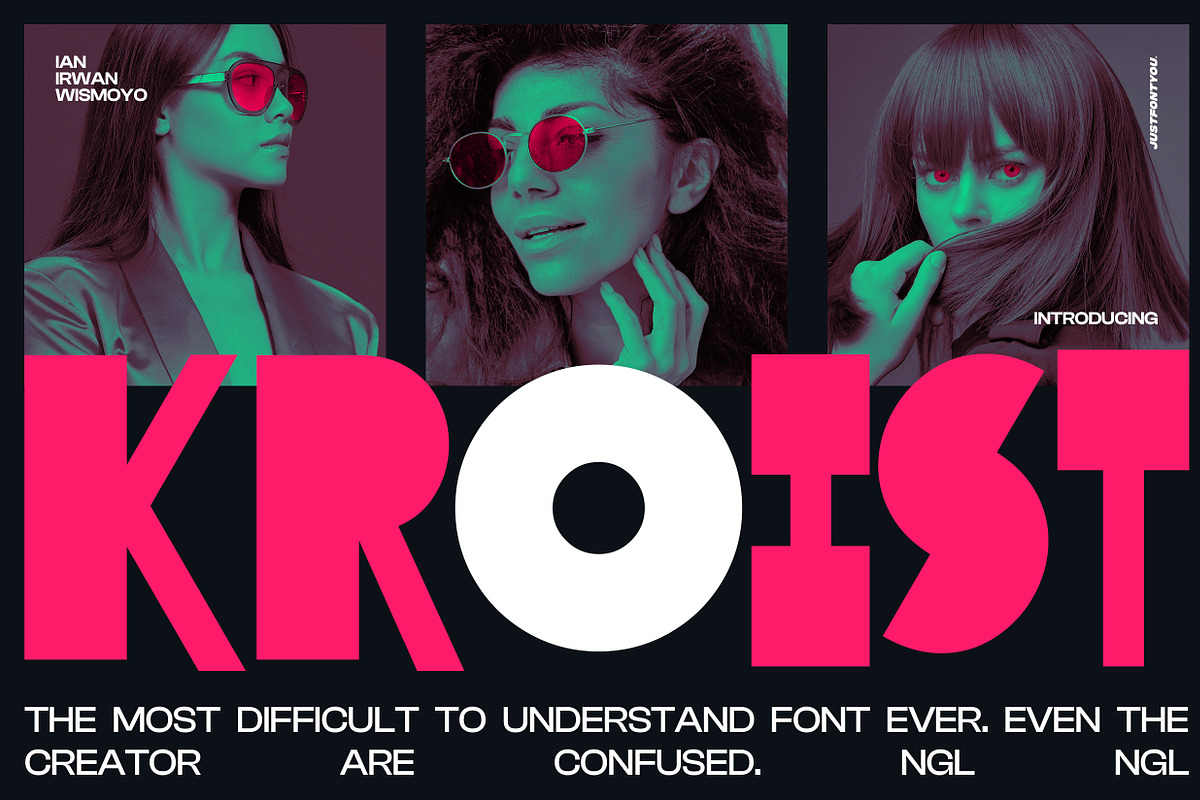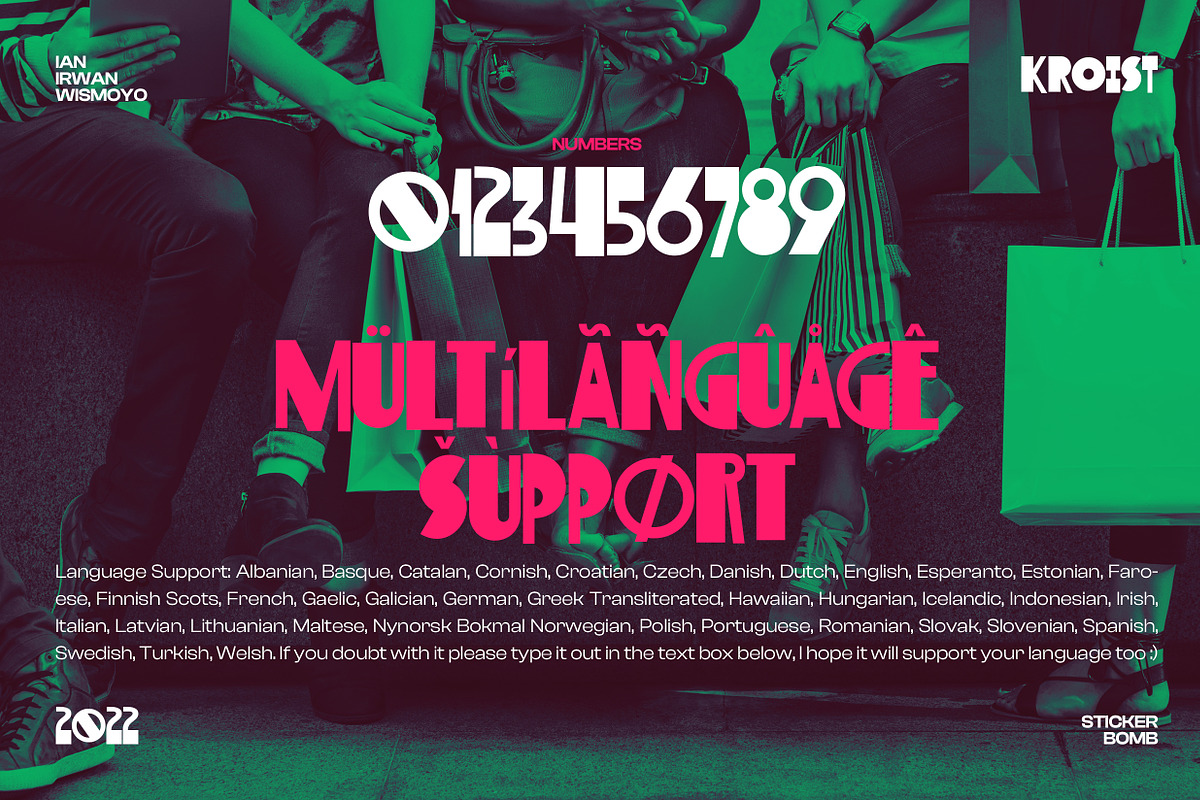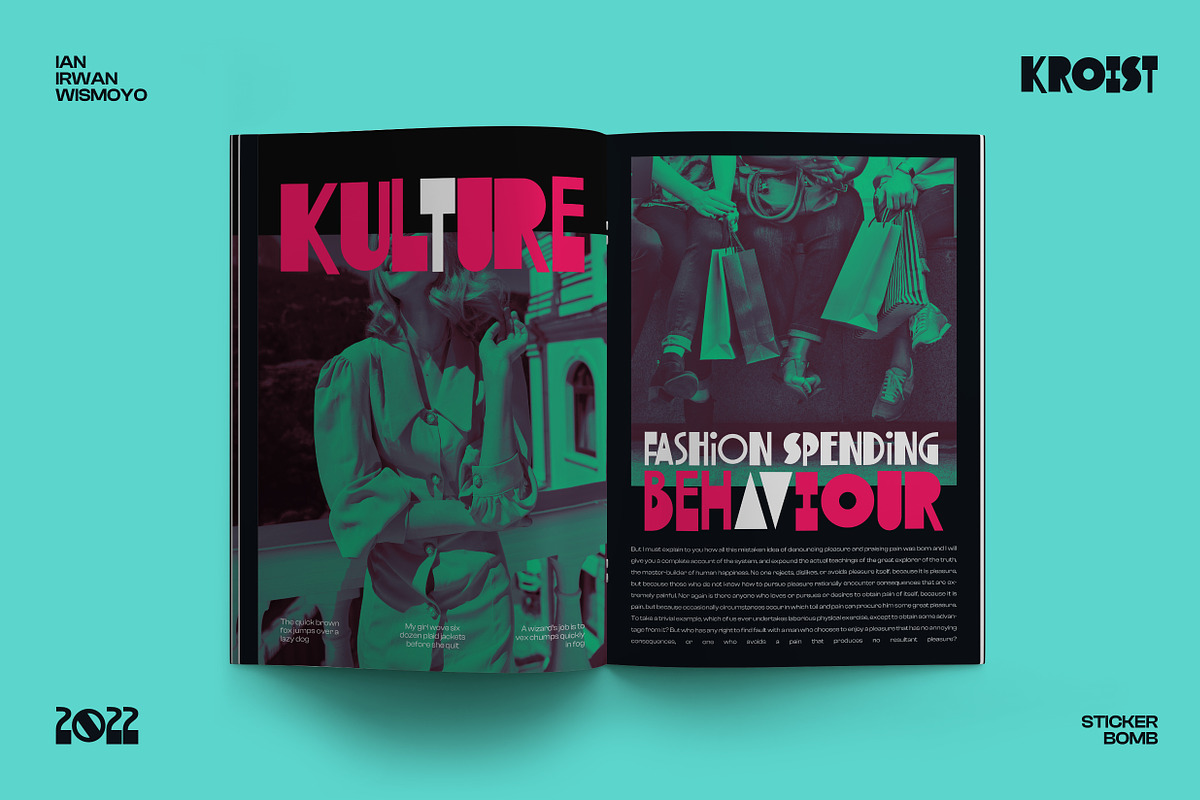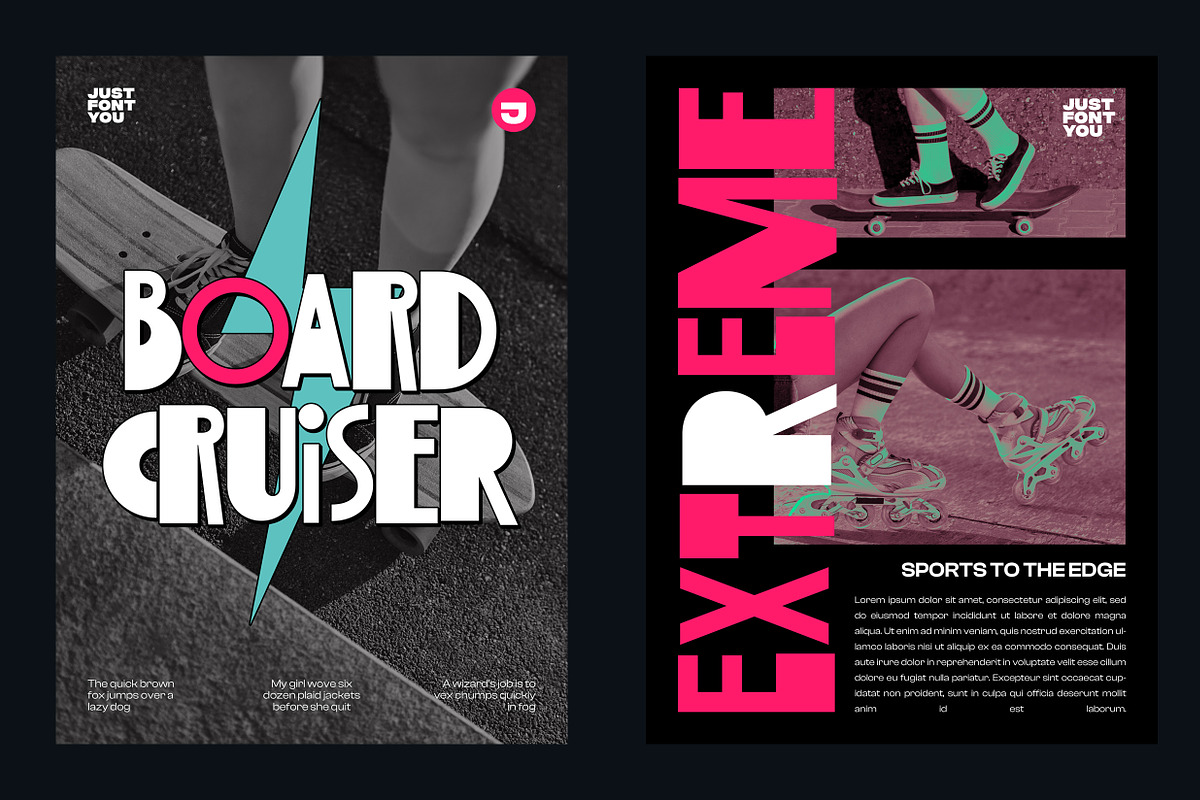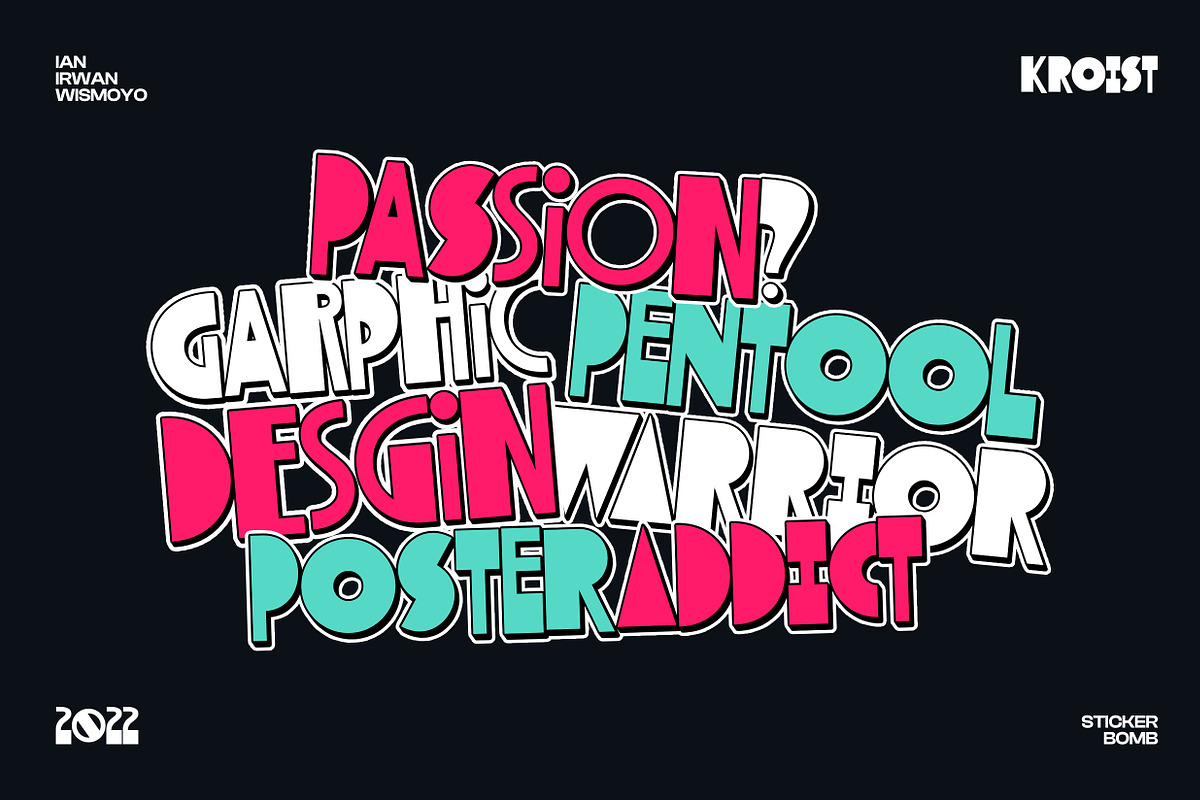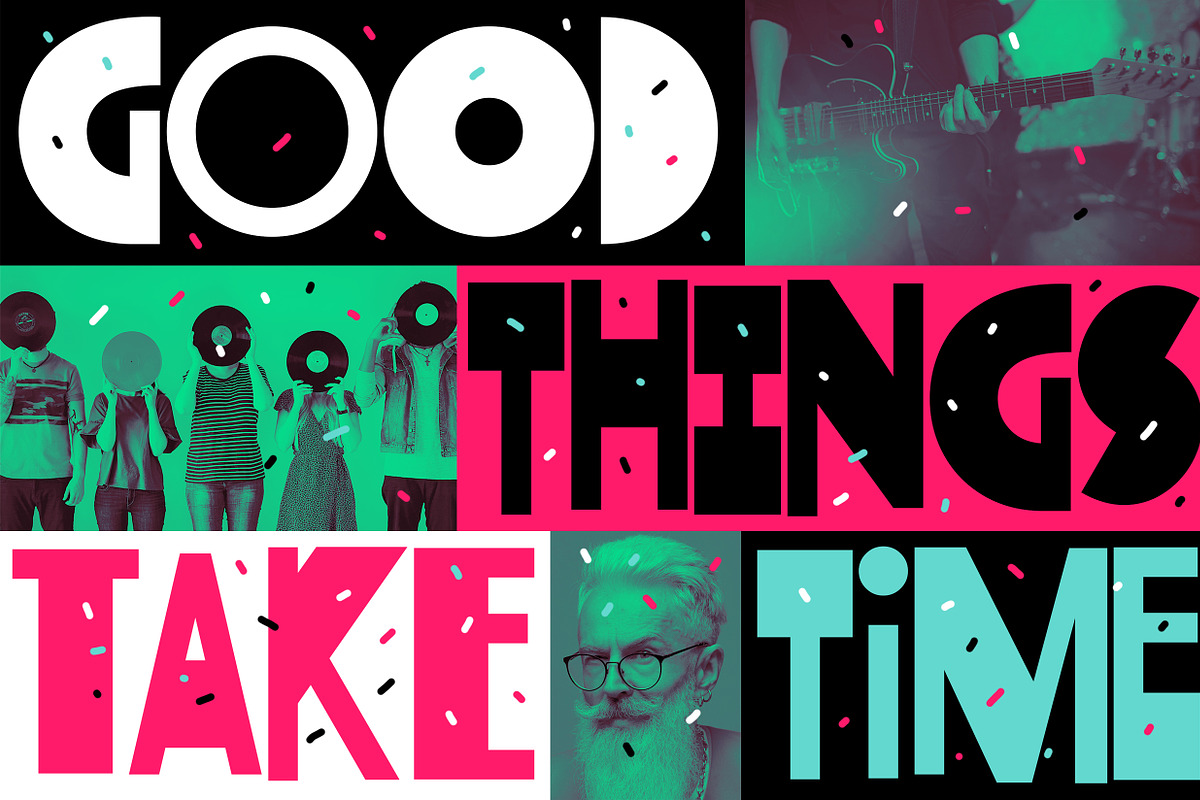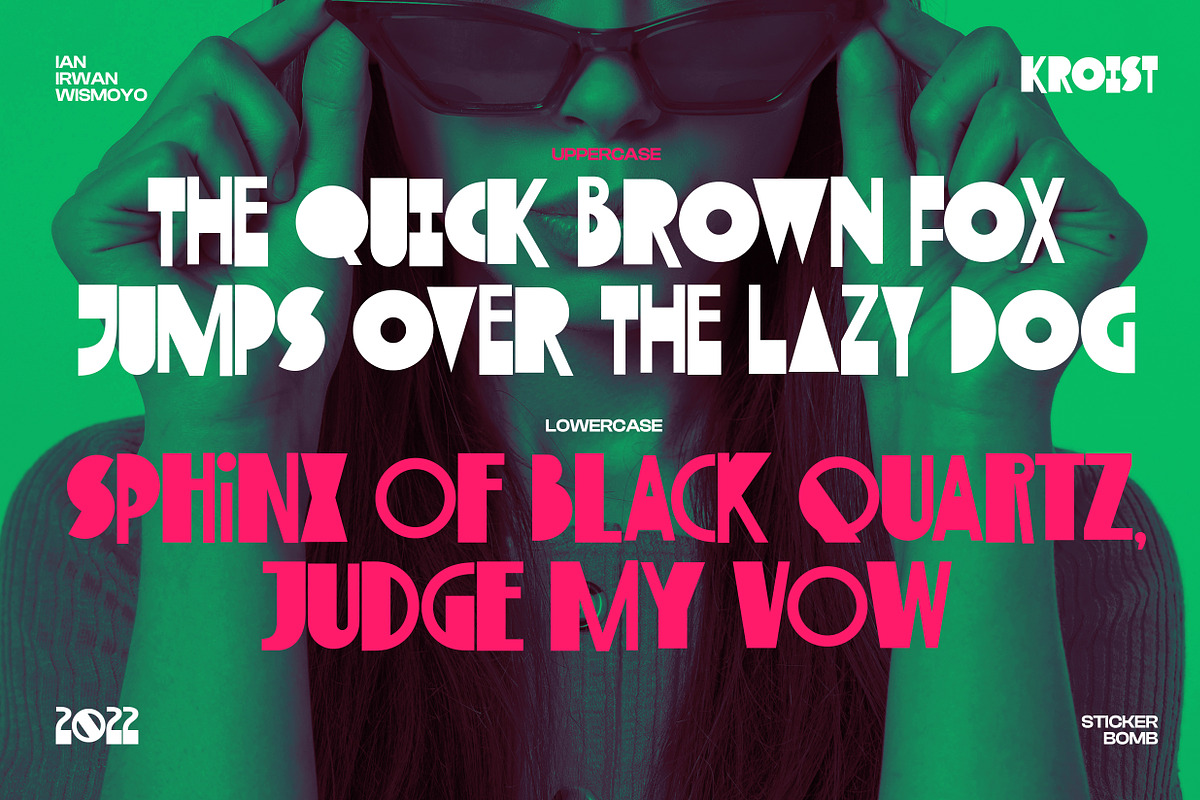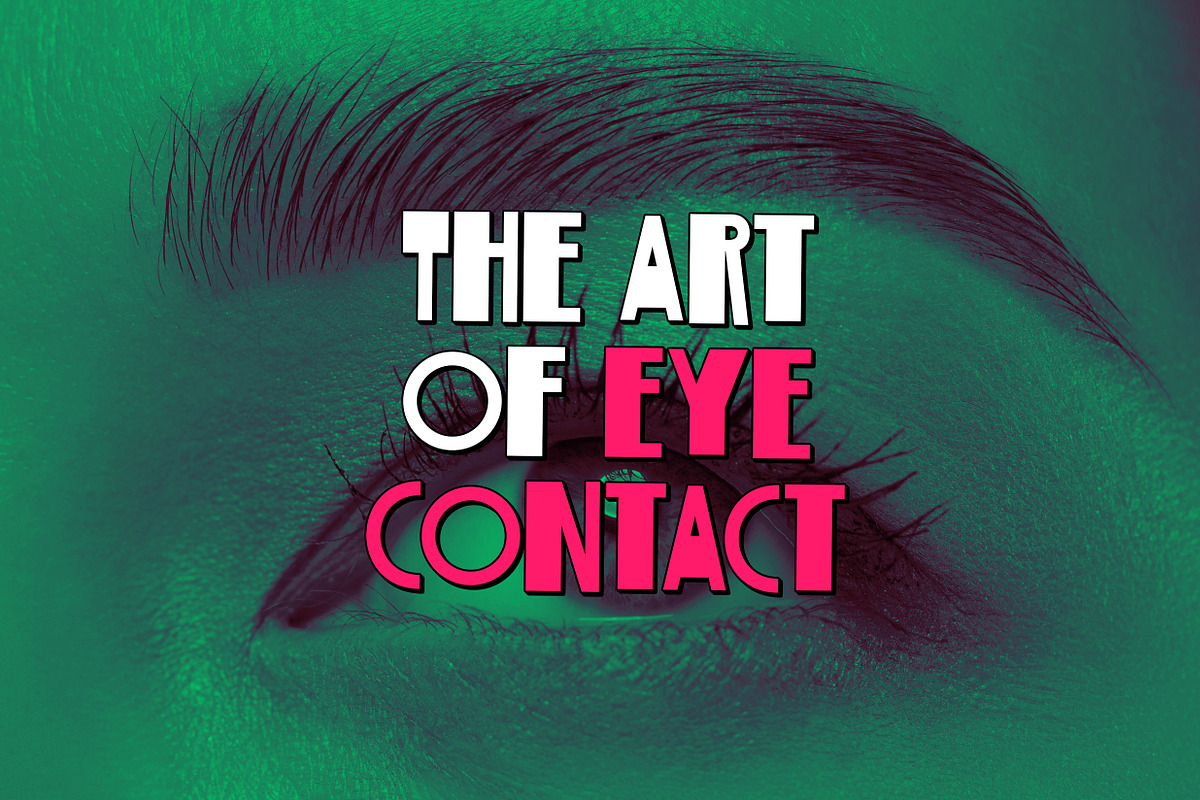
Kroist - Experimental Pop Fonts
Kroist was born from the rebellious mindset to break the rules of perfection of typographic hierarchy. Pushing to the very edge of possibilities to craft something different yet remarkable in the industry.
Combining the reference of classic band posters, old records, and a spirit to be loud in sending the message. Kroist will be your perfect choice for your logo, branding, music project, cover artwork, merchandise, apparel, clothing, fashion, movie title, serial project, and many more.